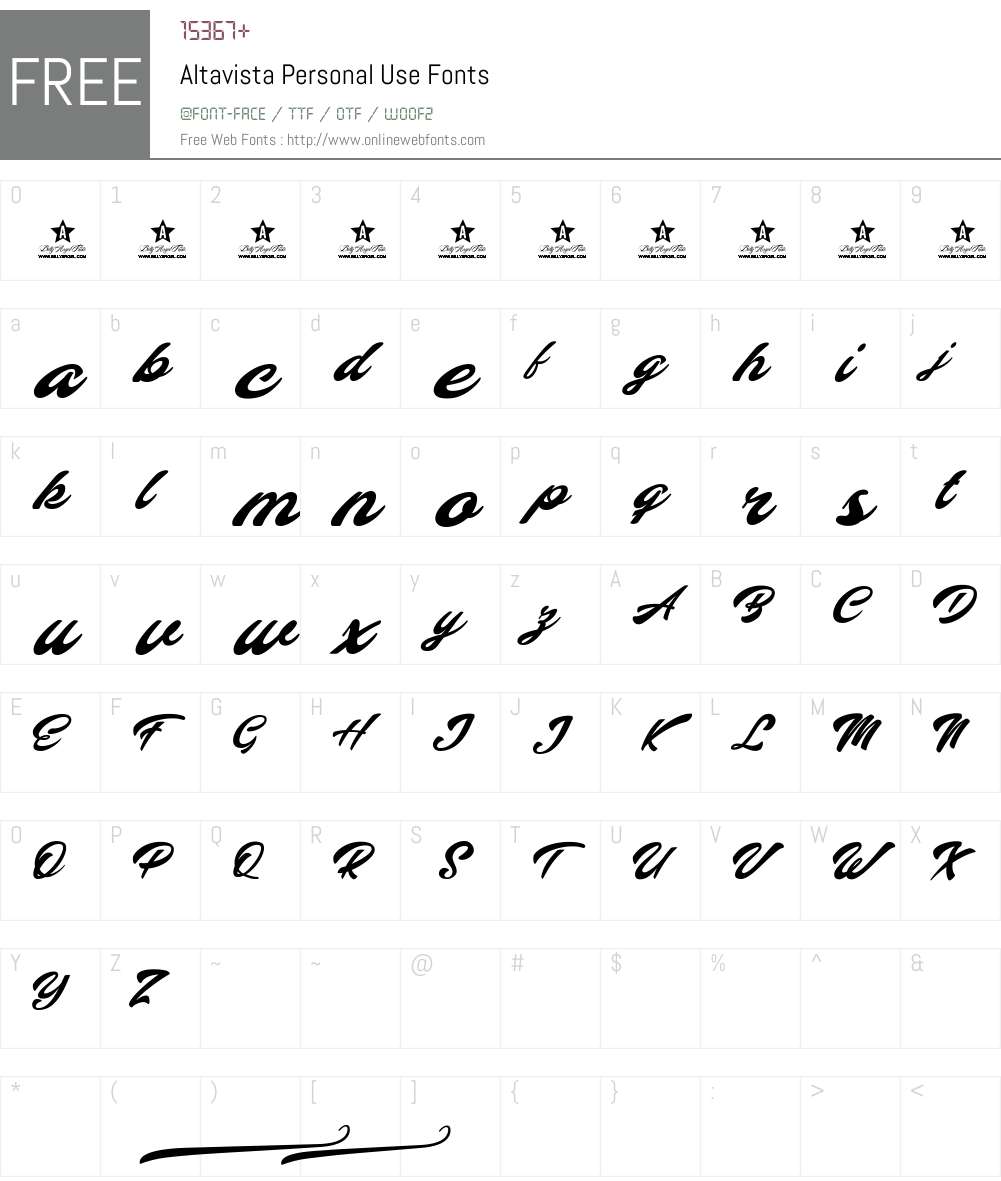
Altavista Font free font Altavista Font Personal use only, commercial licenses. Download altavista font · free for personal use · copyright (c) 2016 by billy argel. Altavista is a script type. This font is partial and free for. The typeface contains 1 file and supports 52 languages. Free download of altavista font. Click now to create a custom image with your own words that you can. Altavista Font.
Altavista Font Duo By Maulana Creative TheHungryJPEG Altavista Font Click now to create a custom image with your own words that you can download. This font is partial and free for personal use. Commercial licenses and complete set available @ billyargel.com. Personal use only, commercial licenses. Altavista is a script type. Altavista was developed billy argel. The typeface contains 1 file and supports 52 languages. 166,535 downloads (4 yesterday). Altavista Font.